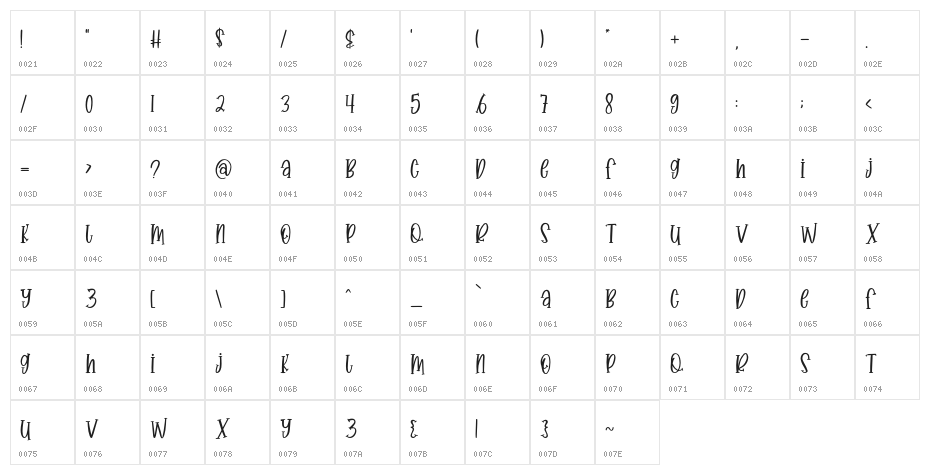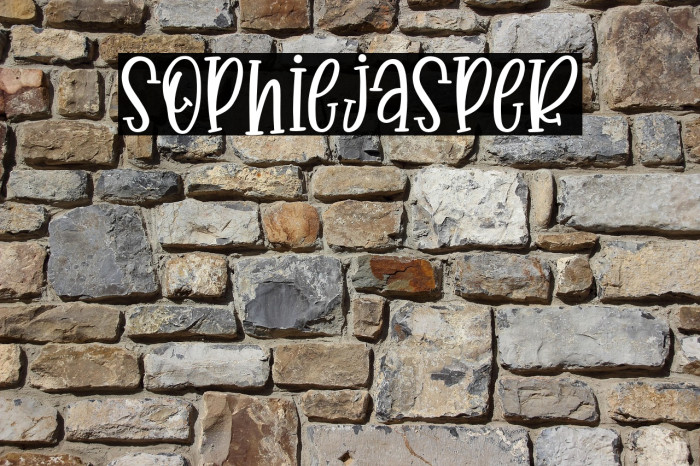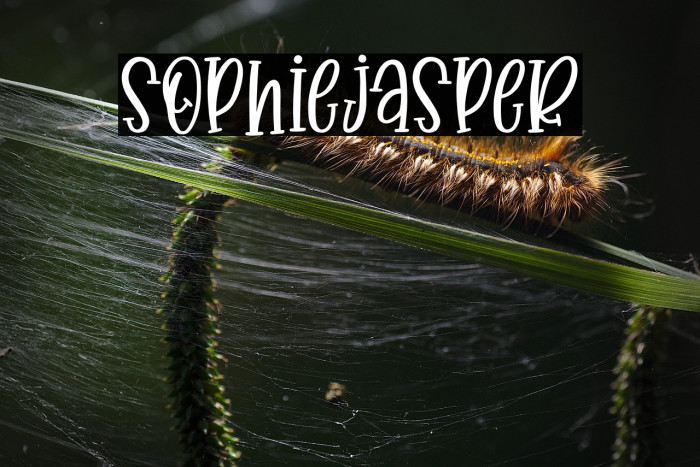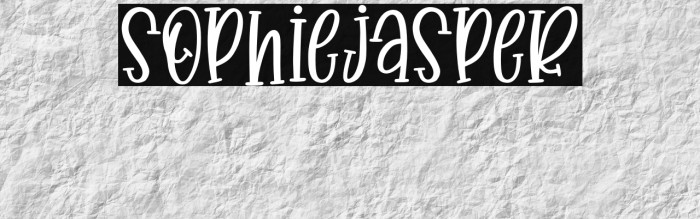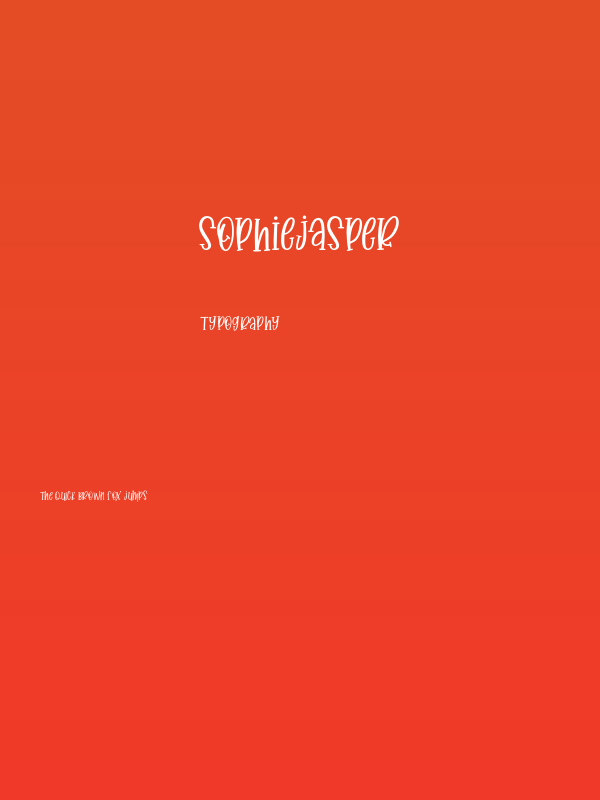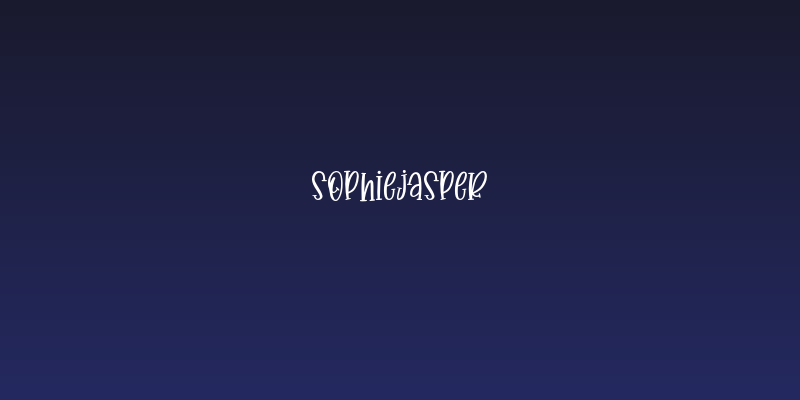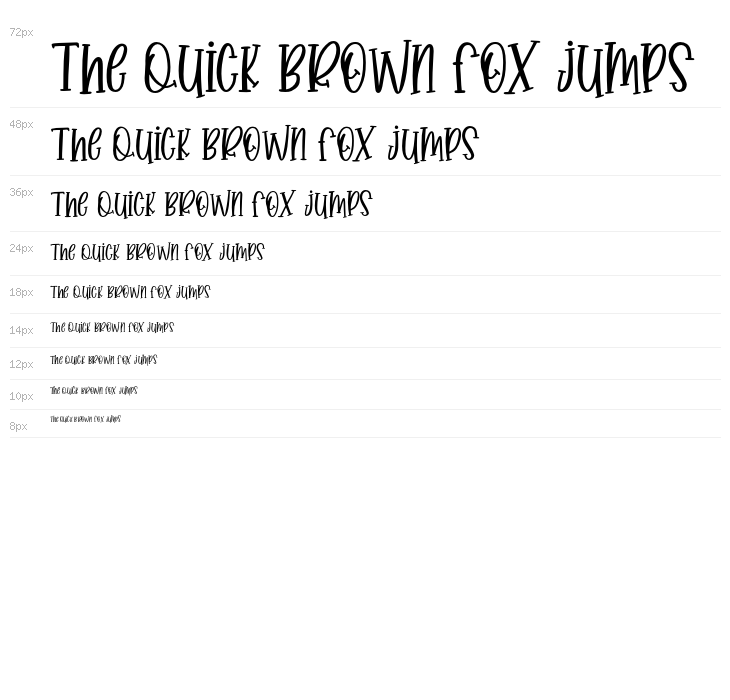
SophieJasper Font
SophieJasper Description
This font features a whimsical and playful design, characterized by its curly and flowing letterforms. The uppercase and lowercase letters exhibit a consistent style with exaggerated curves and loops, giving it a lively and dynamic appearance. The numerals and special characters maintain this playful aesthetic, ensuring a cohesive look across all glyphs. The font's unique style makes it stand out, with a hand-drawn feel that adds a personal touch to any project. Its decorative nature is perfect for creative and artistic applications, where a touch of fun and flair is desired.
| Proposed Projects | Ideal for greeting cards, invitations, children's books, playful branding, and creative posters. |